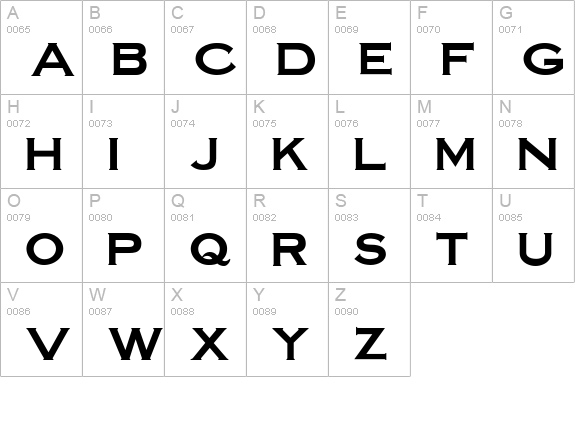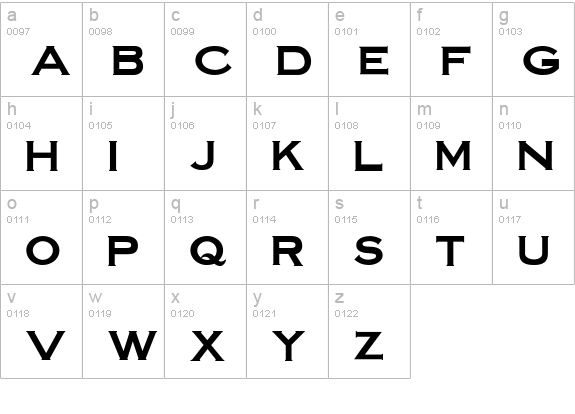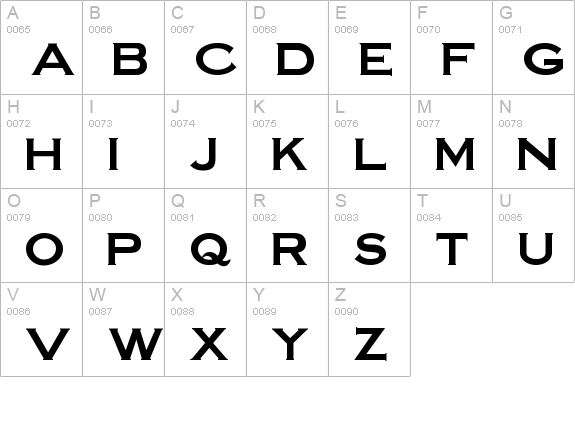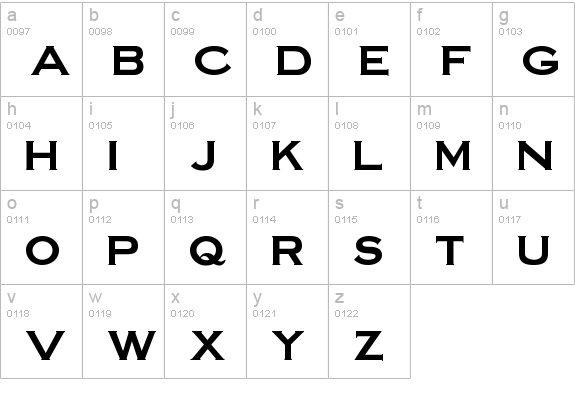
SteelplateGothicBold normal Font Details
SteelplateGothicBold normal is the standard, neutral variant in the SteelplateGothicBold typeface family \xE2\x80\x94 well suited to general body text, paragraphs, and standard typographic work.
SteelplateGothicBold is a robust and bold font that exudes strength and power. Its sharp and clean lines give it a modern and industrial feel, making it the perfect choice for projects that require a strong and impactful design. The thick strokes and wide proportions create a sense of stability and confidence, making SteelplateGothicBold ideal for headings, logos, and display purposes. This versatile font is available in a normal weight, allowing you to effortlessly incorporate it into a wide range of design projects. From posters and banners to packaging and website headers, SteelplateGothicBold is sure to make a bold statement and grab the attention of your audience. The best part is that SteelplateGothicBold is freely available to download at FontsMarket.com. This means that you can easily access and use this powerful font without any hassle. Whether you're a professional designer or a casual user, you can now enjoy the benefits of SteelplateGothicBold without any cost. So why wait? Download SteelplateGothicBold now from FontsMarket.com and unleash its power in your designs. With its bold and impactful presence, this font is sure to elevate your projects and leave a lasting impression on your audience.